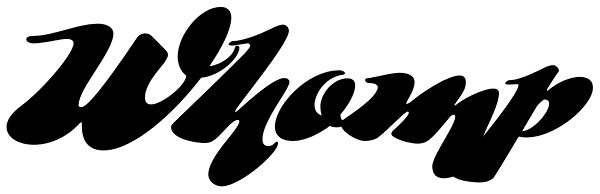
Whomp
Whomp takes its inspiration from the work of an American master in sign painting and alphabet manipulation: Alf Becker. In 1932, Becker began designing a series of alphabets to be published in Signs of the Times magazine at the rate of one alphabet...